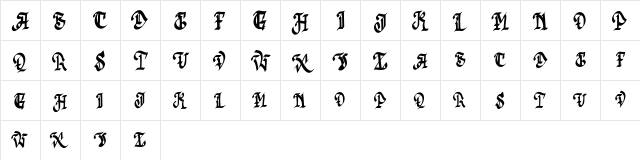
Acude FREE Regular Free Font
Acude FREE Regular
Design Context for Acude FREE
Acude FREE is a composed and adaptable typeface that performs quietly and consistently across a wide range of design contexts.